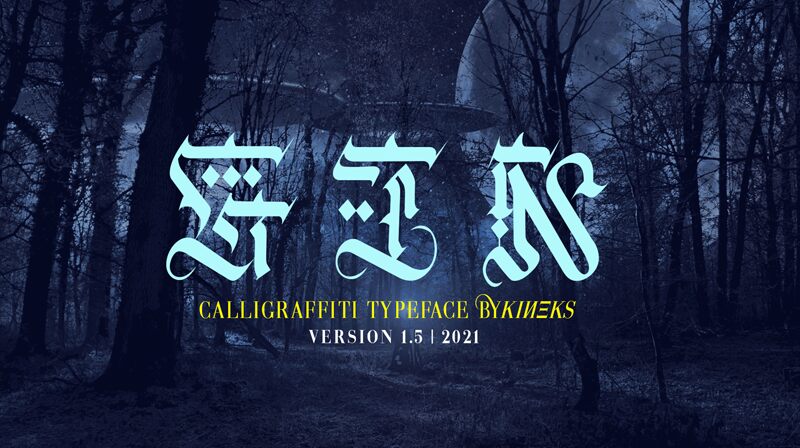
GIN, the gothic calligraphic font by Bykineks, exudes a sense of mystery and grandeur. Its ornate curves and sharp edges create an unforgettable impression, making it perfect for projects that require a touch of drama. Whether you're designing invitations for a gothic-themed wedding or creating promotional material for a medieval fair, GIN's unique style is sure to capture attention. The semi-bold font makes it ideal for headlines and titles, while the narrow width is perfect for compact designs such as logos and business cards. Give your project the edge it deserves with GIN – the font that will make you stand out from the crowd.
GIN